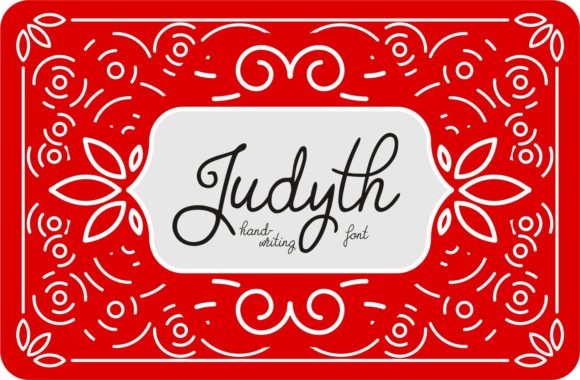
Adorn your design projects with the enchanting Judyth Font, a script masterpiece crafted by Digital Typeface Studio. This handwritten gem exudes a captivating simplicity, adorned with a graceful array of swashes that infuse your designs with an authentic, personal touch. Embrace the allure of Judyth, and elevate your creative expressions to new heights.
Immerse yourself in the whimsical world of Judyth, where elegant strokes dance across your designs. Its charming imperfections and organic flow evoke a human touch, capturing the essence of handwritten artistry. Unveil your creative potential and transform ordinary projects into visual masterpieces with Judyth's captivating presence.
Unleash the boundless possibilities of Judyth. Its versatility extends from heartfelt wedding invitations to playful social media posts, from stunning logos to whimsical branding elements. Let your imagination soar as you explore the endless applications of this versatile script. Experience the joy of creating designs that resonate with authenticity and charm.
With Judyth as your creative companion, you'll embark on a journey of artistic exploration. Its intuitive nature makes it an accessible choice for both seasoned designers and those just beginning their creative odyssey. Discover the ease of transforming your visions into reality with Judyth, and witness the magic unfold before your eyes.